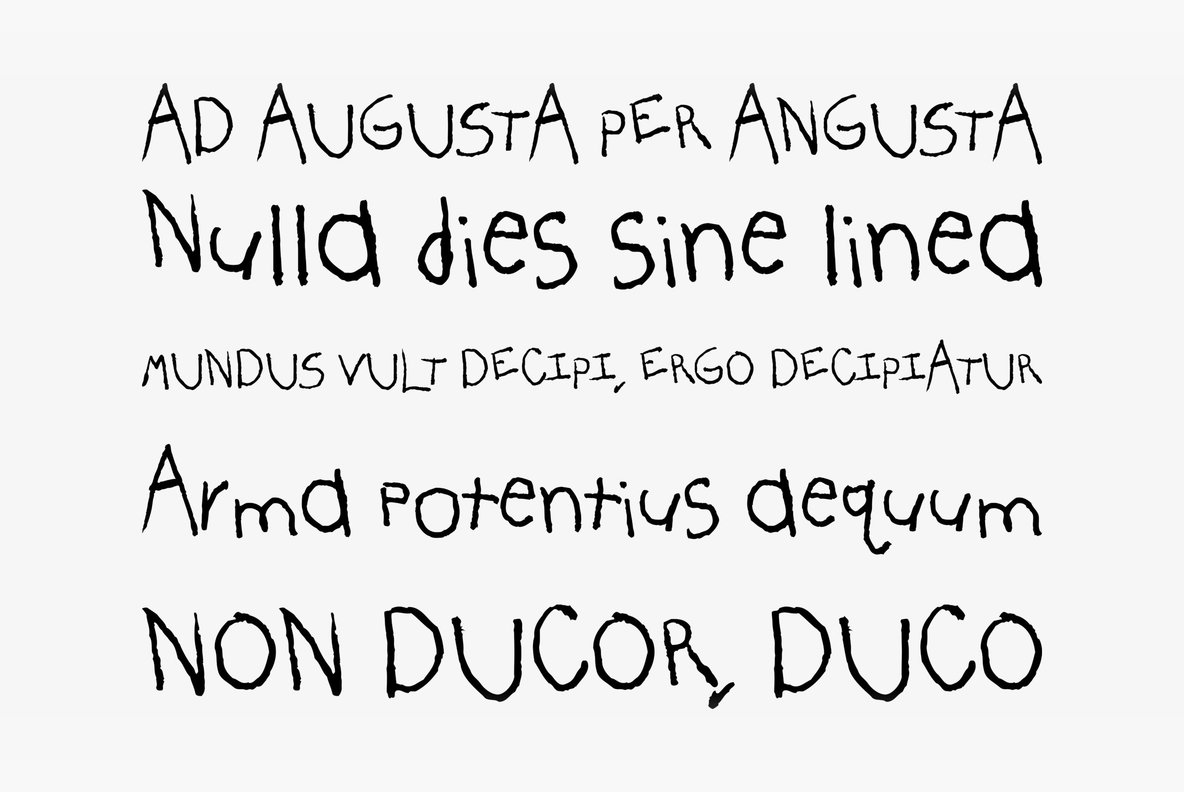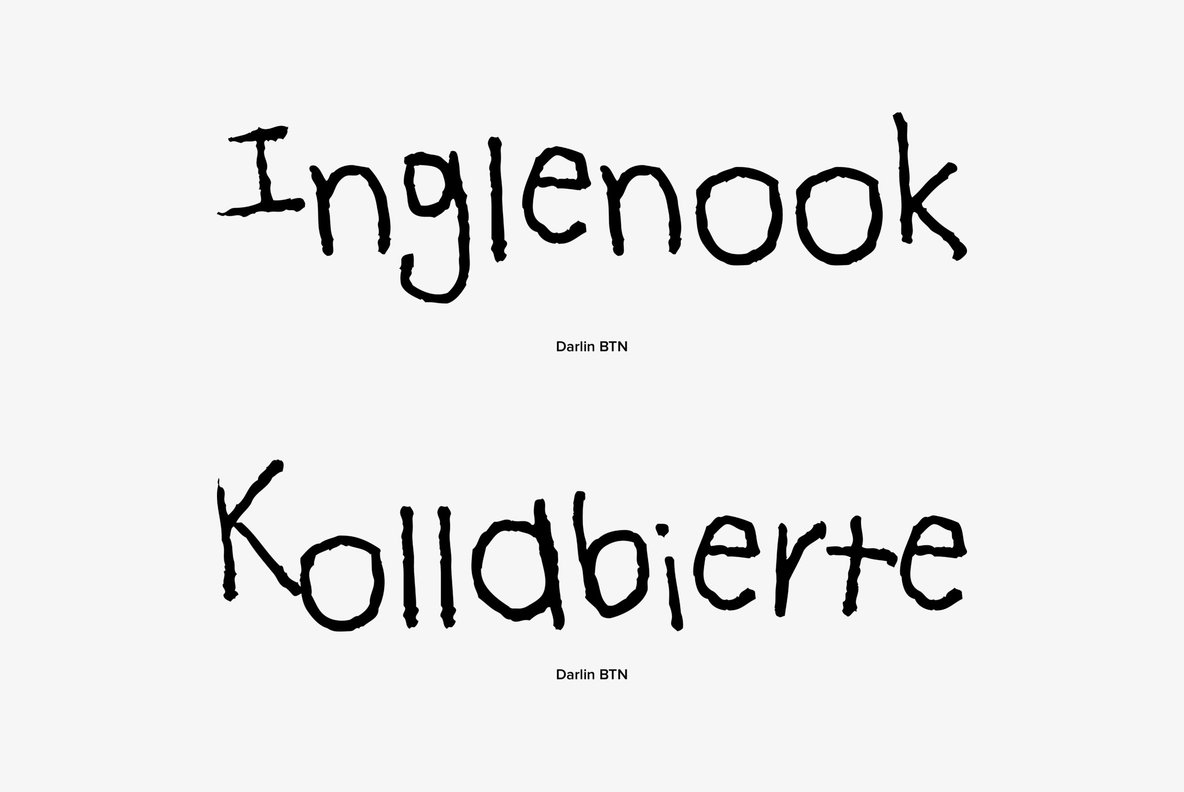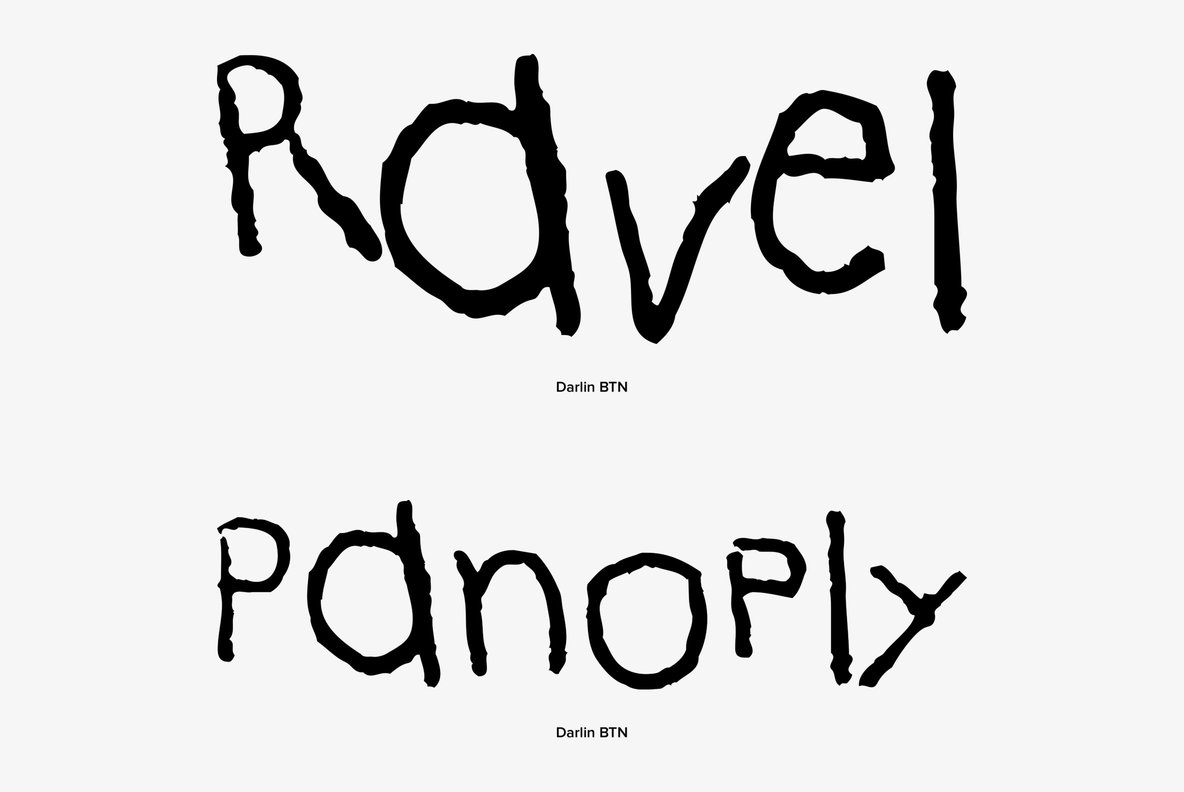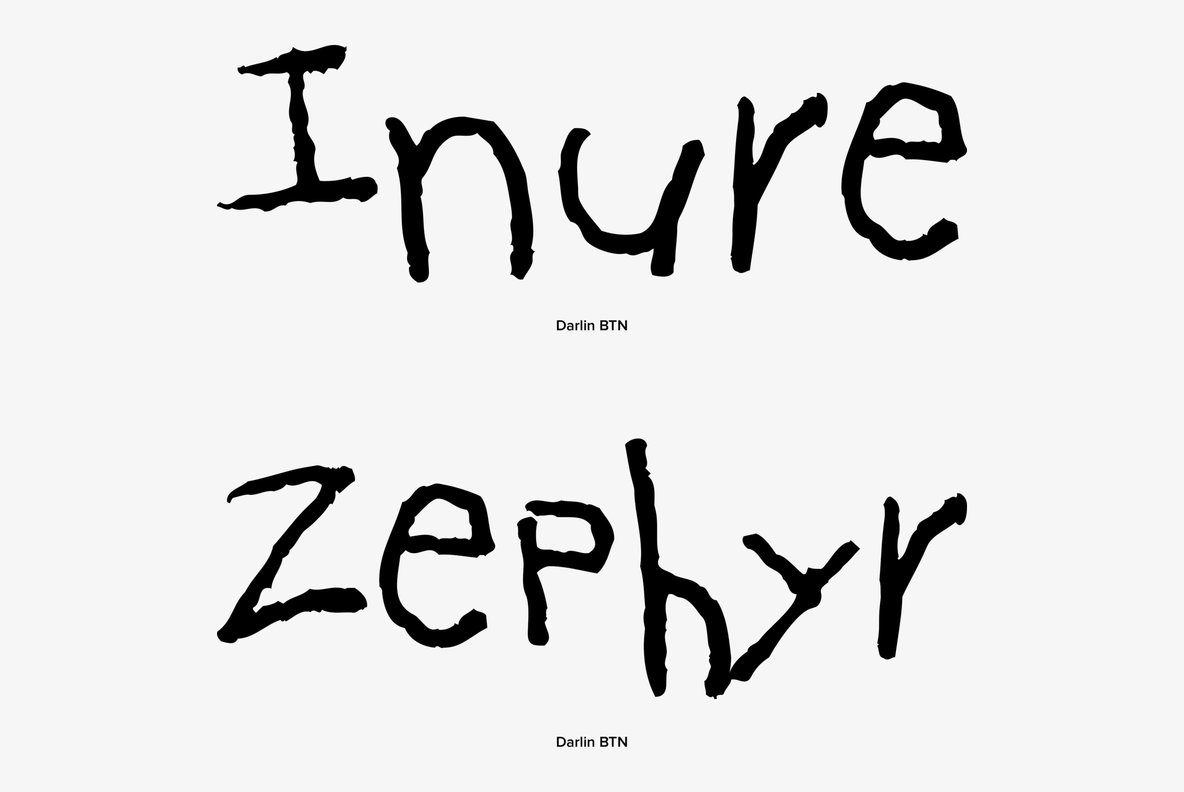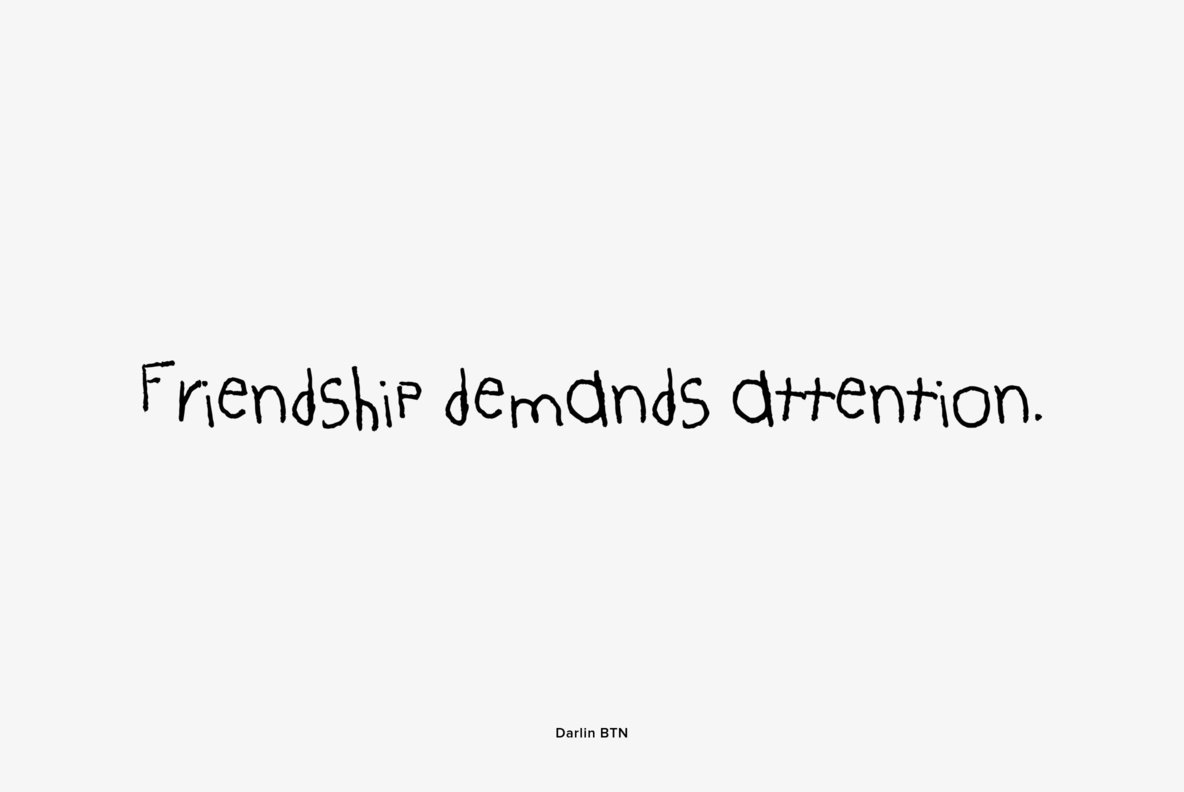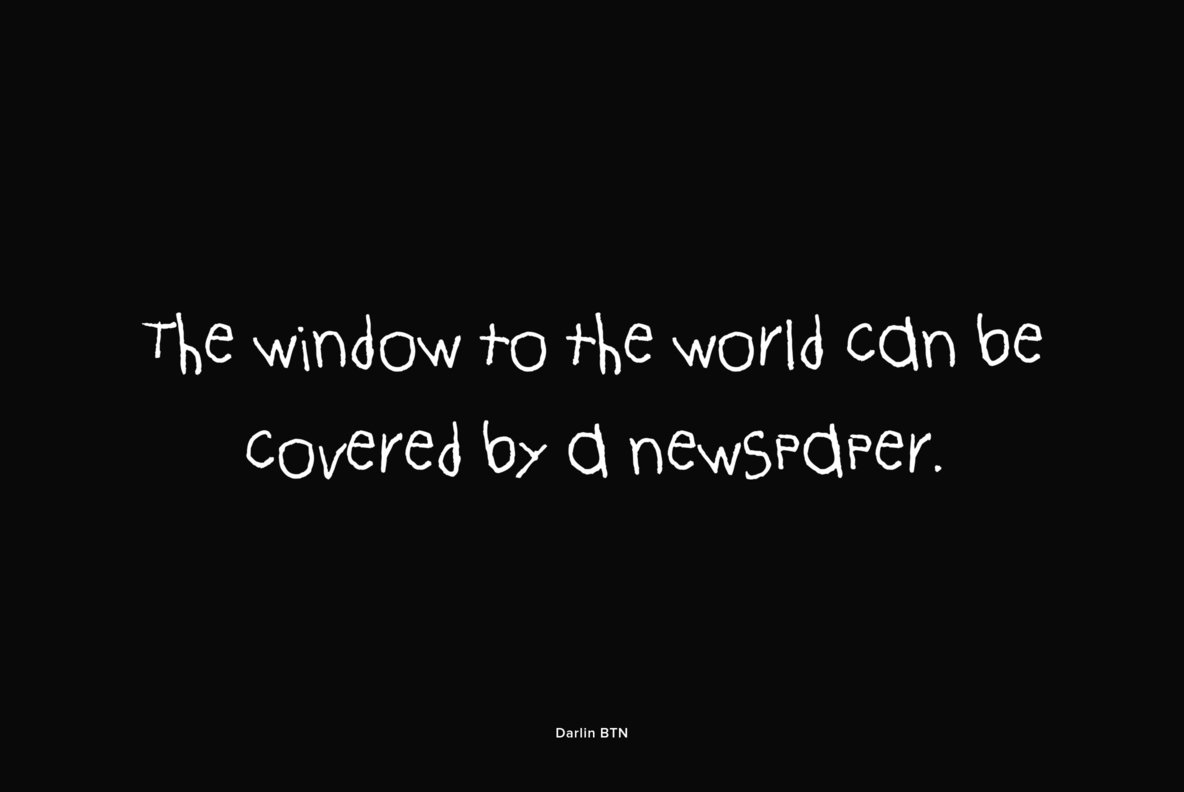
Darlin was created by an actual 6 year old girl and fonted for your pleasure! No need to mimic childrens handwriting when you can get the REAL thing! Use it for all your educational endeavors or fun party invitations!